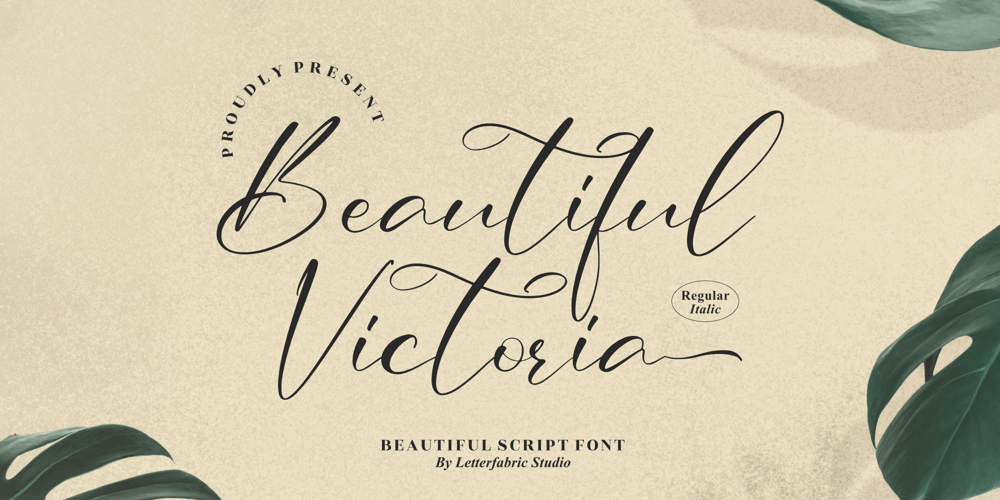
Beautiful Victoria Font Family was designed by Heru Utama Putra and published by Letterena Studios. Beautiful Victoria contains 2 styles and family package options. Beautiful Victoria is a lovely script font featuring charming, playful characters that seem to dance along the baseline. Add this font to your most creative ideas, and notice how it makes them stand out!Beautiful Victoria is PUA encoded which means you can access all glyphs and swashes with ease!